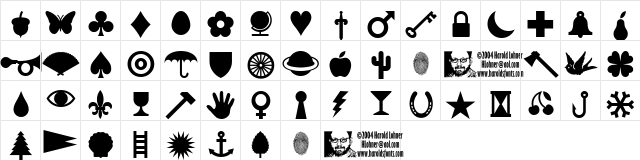
Harold's Pips Regular
Design Context for Harold's Pips Typeface
Harold's Pips is a composed and adaptable typeface that performs quietly and consistently across a wide range of design contexts.